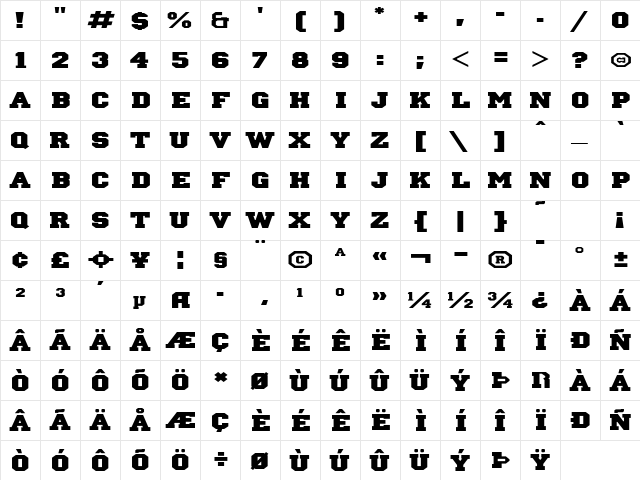
IvyLeagueExtendedSolid Regular
Design Context for IvyLeagueExtendedSolid Typeface
IvyLeagueExtendedSolid offers clean, dependable letterforms without strong stylistic allegiance, making it a practical choice for designers who need flexibility.